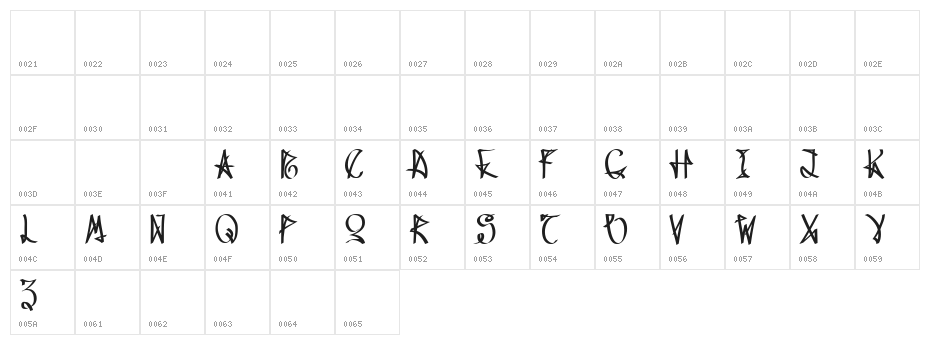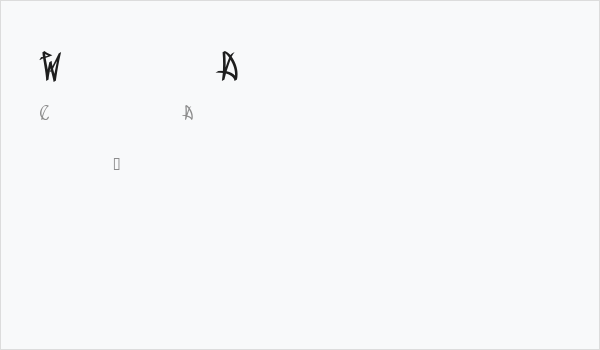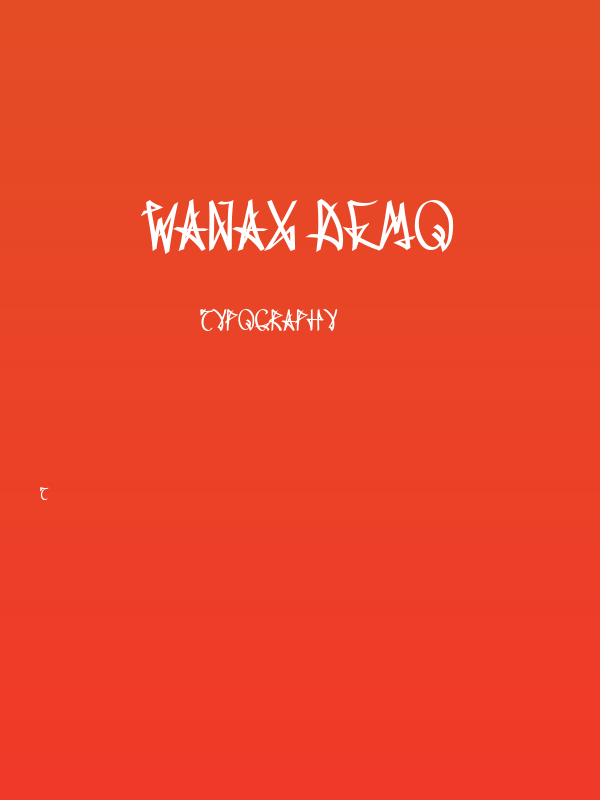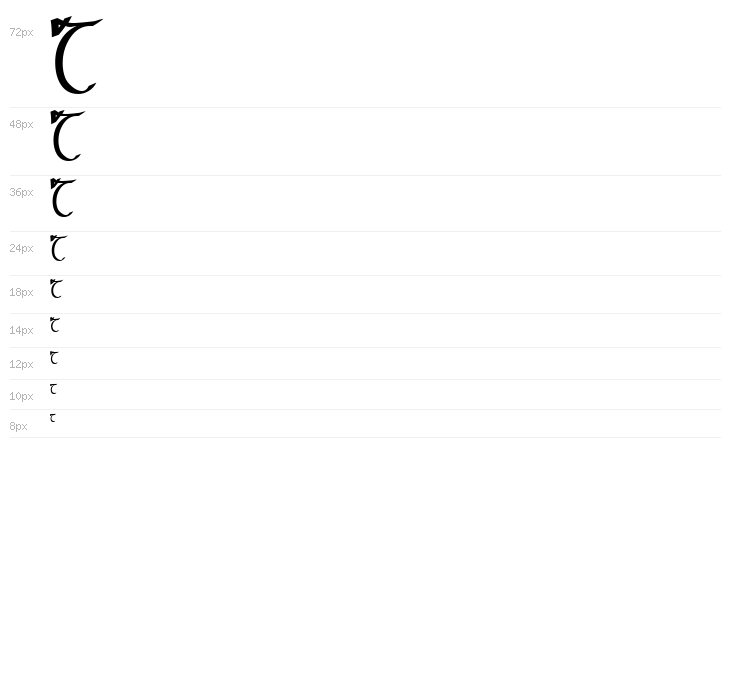
Wanax Demo Font
Wanax Demo Description
This font features an intricate and bold design, characterized by sharp angles and dramatic curves that create a sense of movement and energy. The letters are highly stylized, with unique embellishments that give each character a distinct personality. The overall appearance is striking and artistic, making it ideal for projects that require a strong visual impact. The font's decorative nature lends itself well to creative and unconventional applications, where its boldness and flair can be fully appreciated.
| Proposed Projects | Ideal for album covers, posters, and branding projects that require a bold and artistic touch. |